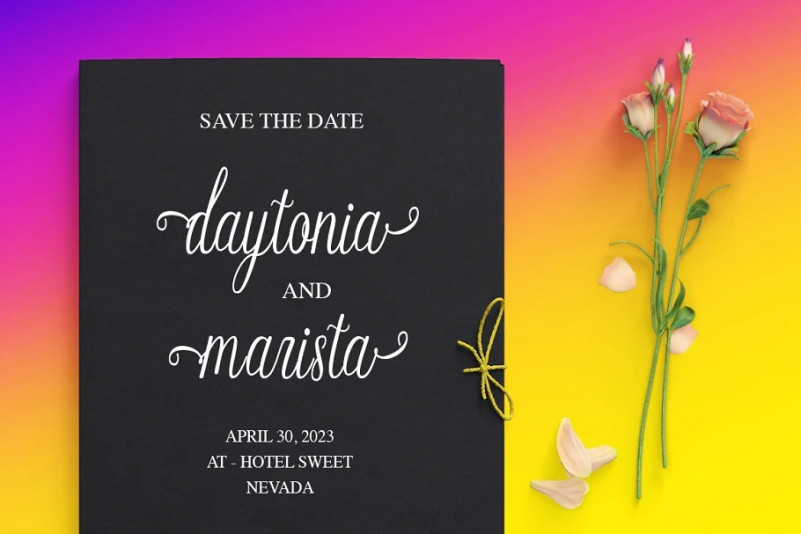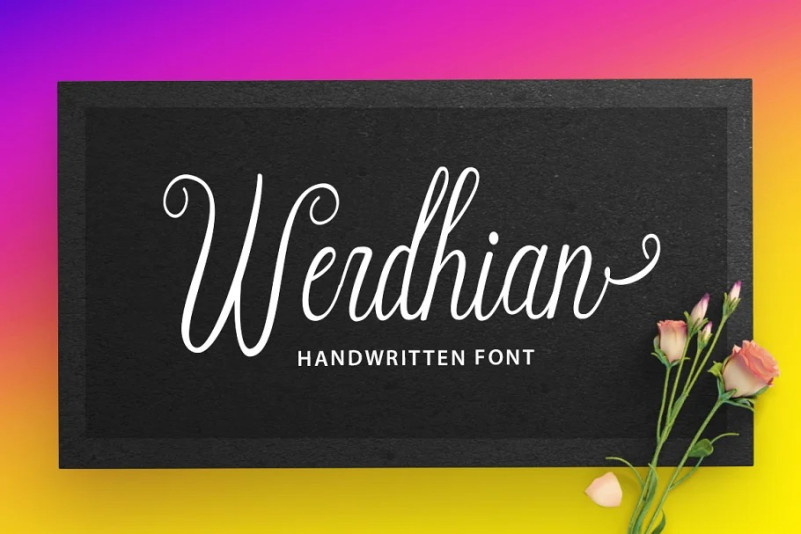
Werdhian Font
Werdhian Script Font is elegant handwritten font. a stylish and pretty with swashes. Features Open type feature, stylistic alternates, including initial and terminal letters, ligatures and International support for most Western Languages is included. Perfect to creating modern designs like ads, logos, branding, quotes, poster, wedding invitation and more. that makes the font look fabulous!